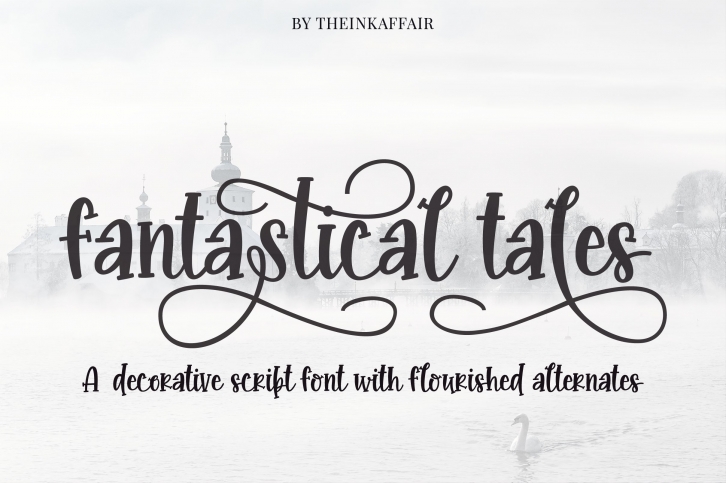
A playful, decorative script font, Fantastical Tales comes with a set of uppercase, lowercase as well as beautifully flourished lowercase alternates, making it the perfect pick for your next project.
Things you can use it for:
- Designing invitations
- logos, branding and packaging
- quote graphics for print/sublimation design etc